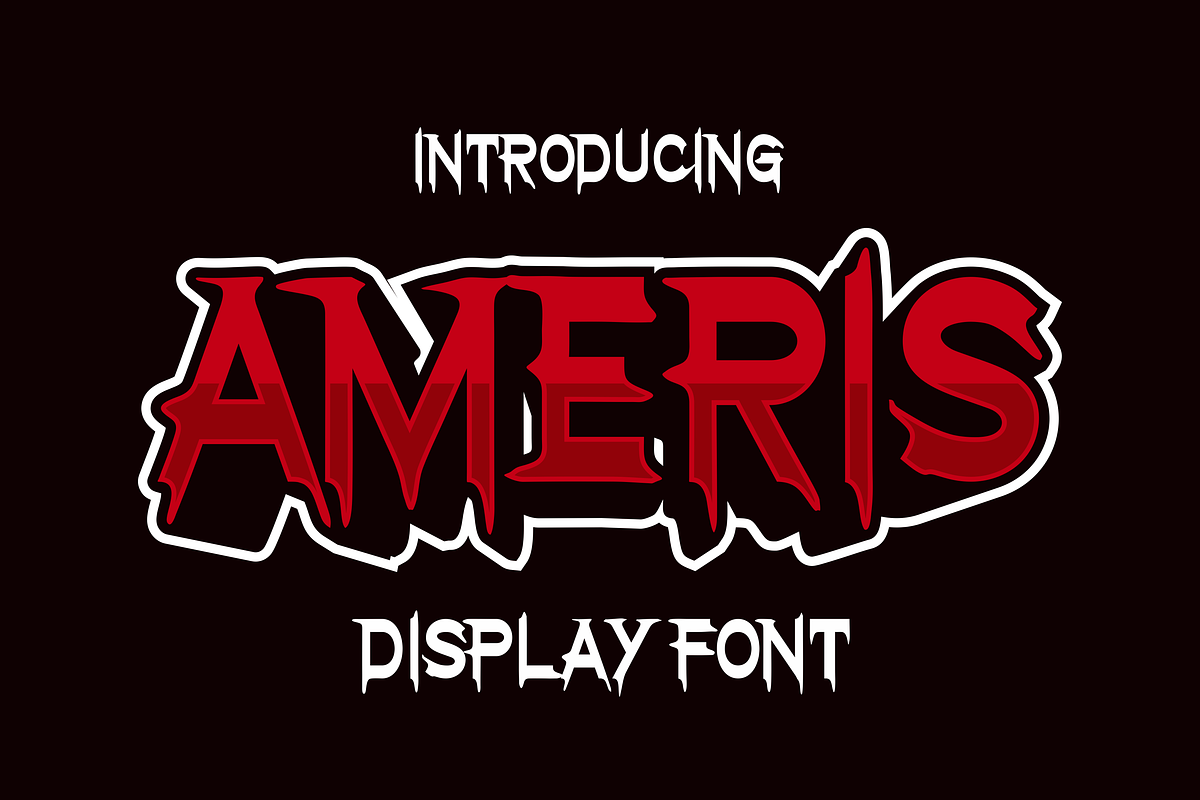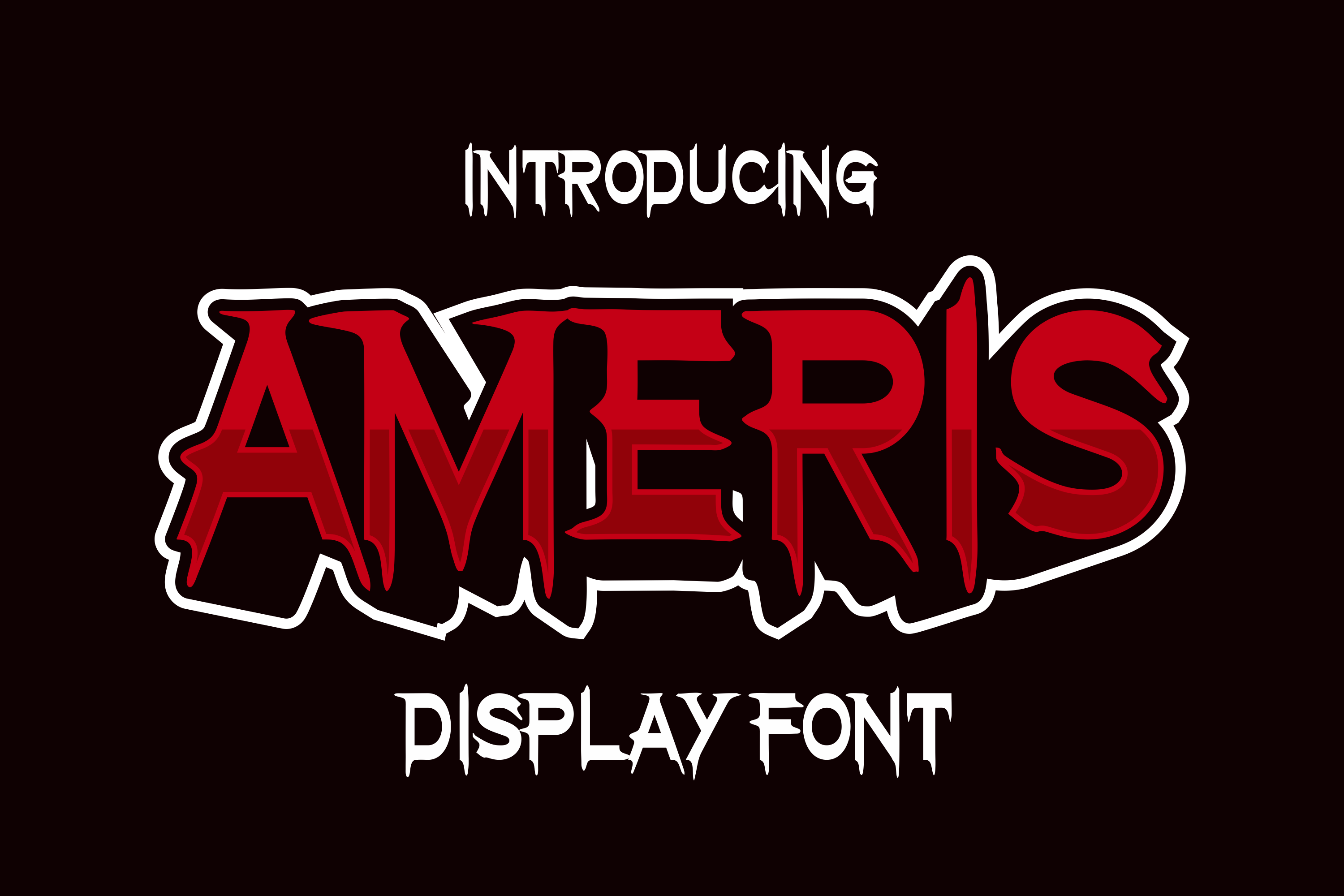
Ameris - Street Market Font
Ameris - Street Market Font Perfectly suited on print/screen. it’s perfect for Branding, name card, poster, logo, magazine, cover, banner, t-shirt and headers, or even large-scale artwork.